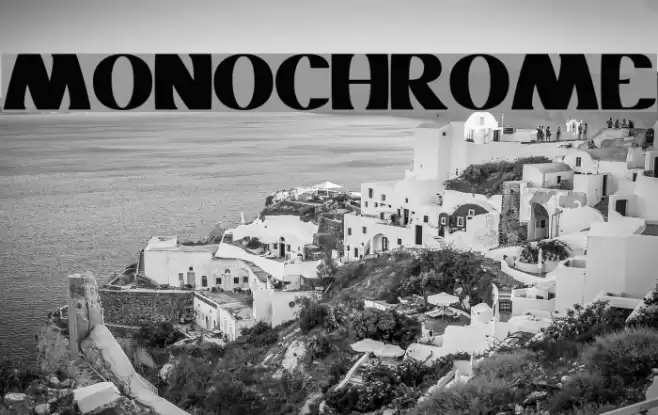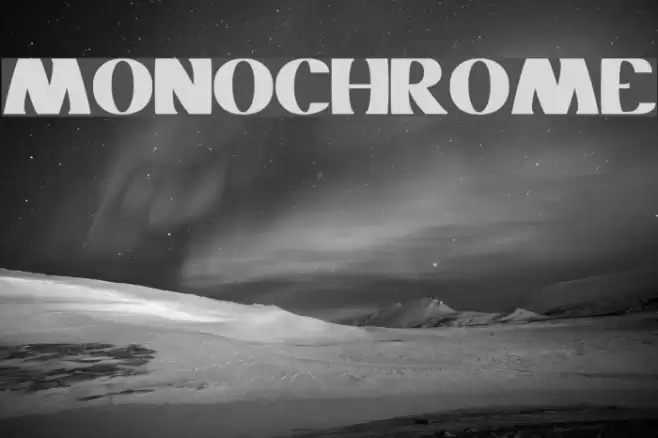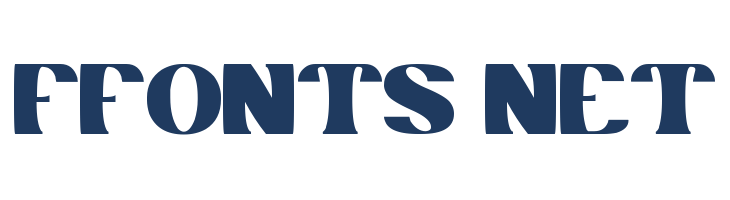
MONOCHROME Font
MONOCHROME Description
This font features bold, geometric shapes with a strong presence, characterized by its thick strokes and unique cut-out elements within each letter. The design is reminiscent of stencil or industrial styles, providing a modern and edgy feel. The uppercase letters are particularly striking, with sharp angles and a sense of symmetry that adds to its boldness. The font's overall appearance is both eye-catching and versatile, suitable for making a statement in various design contexts.
- Proposed Projects: Ideal for branding, posters, headlines, and any design project requiring a strong visual impact.